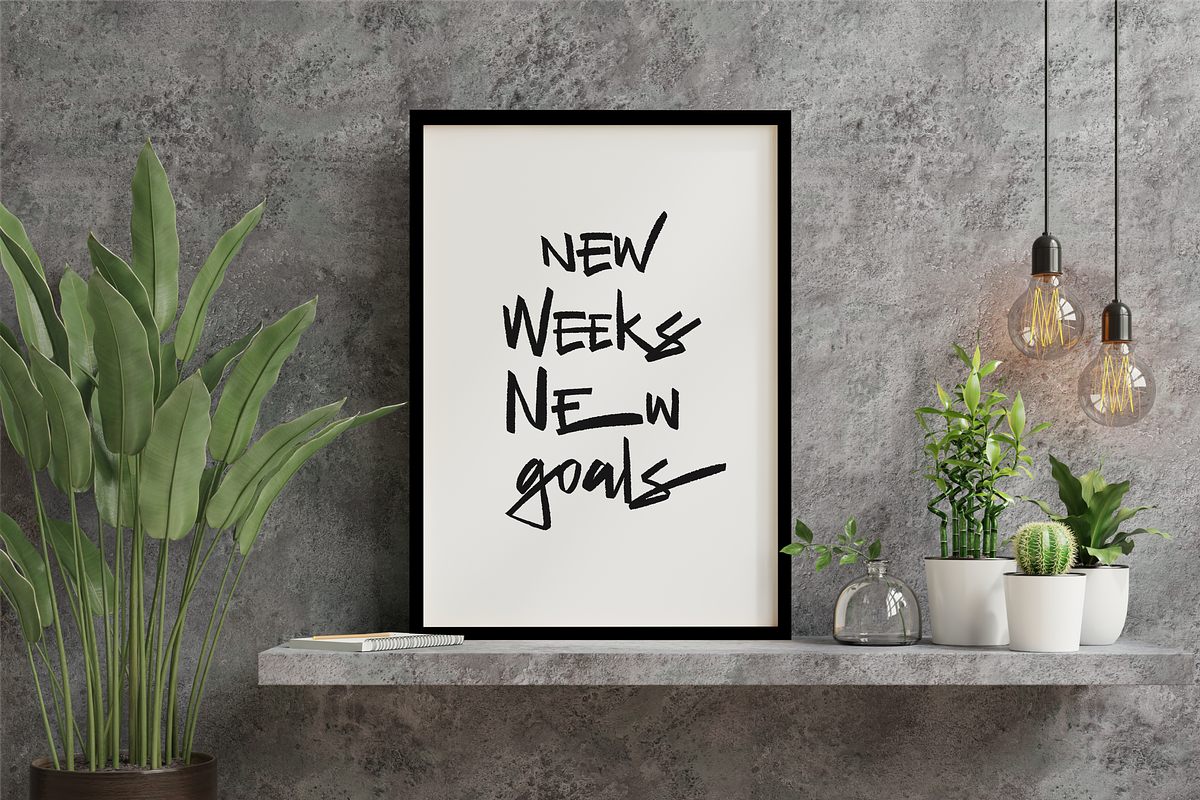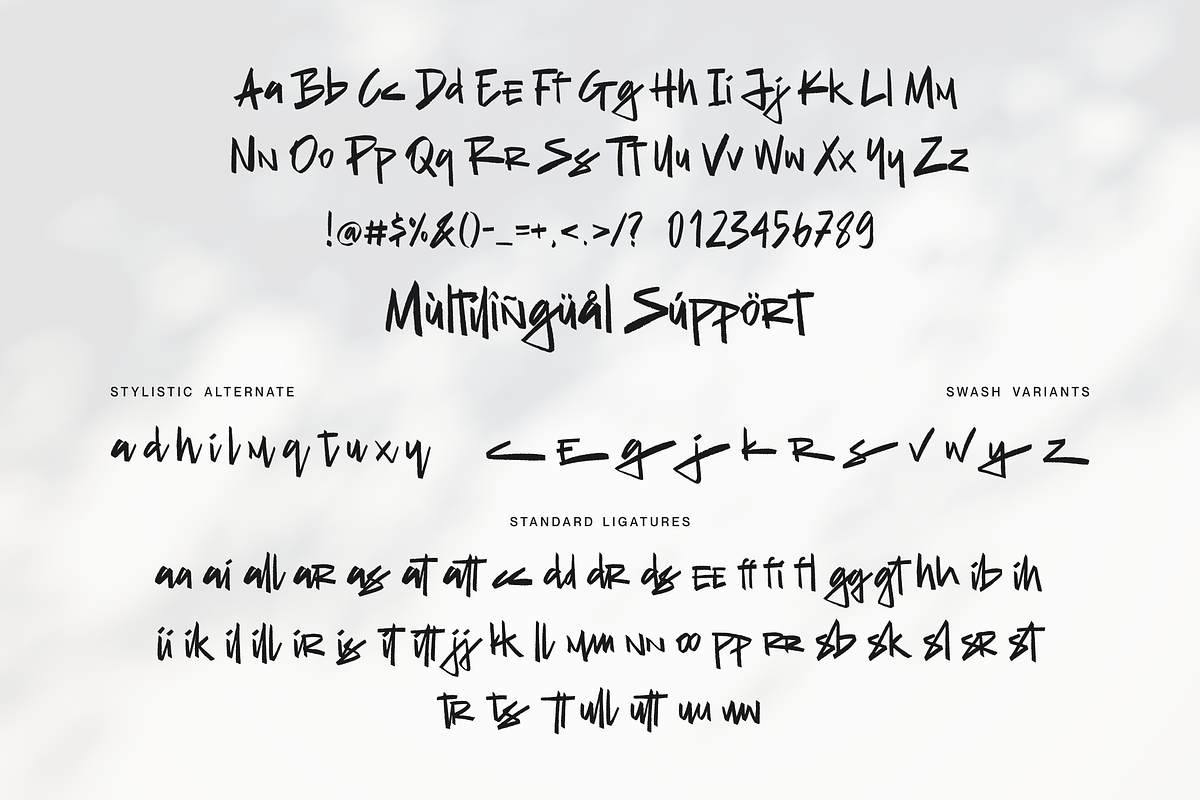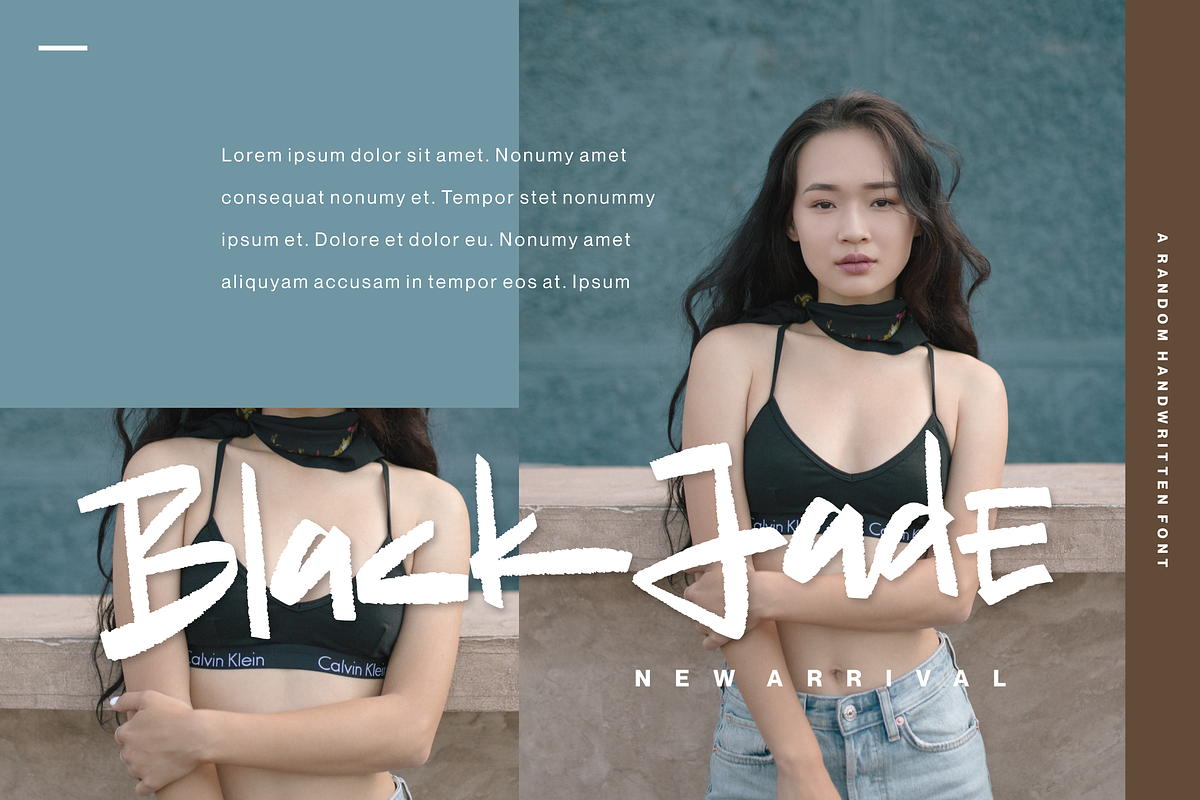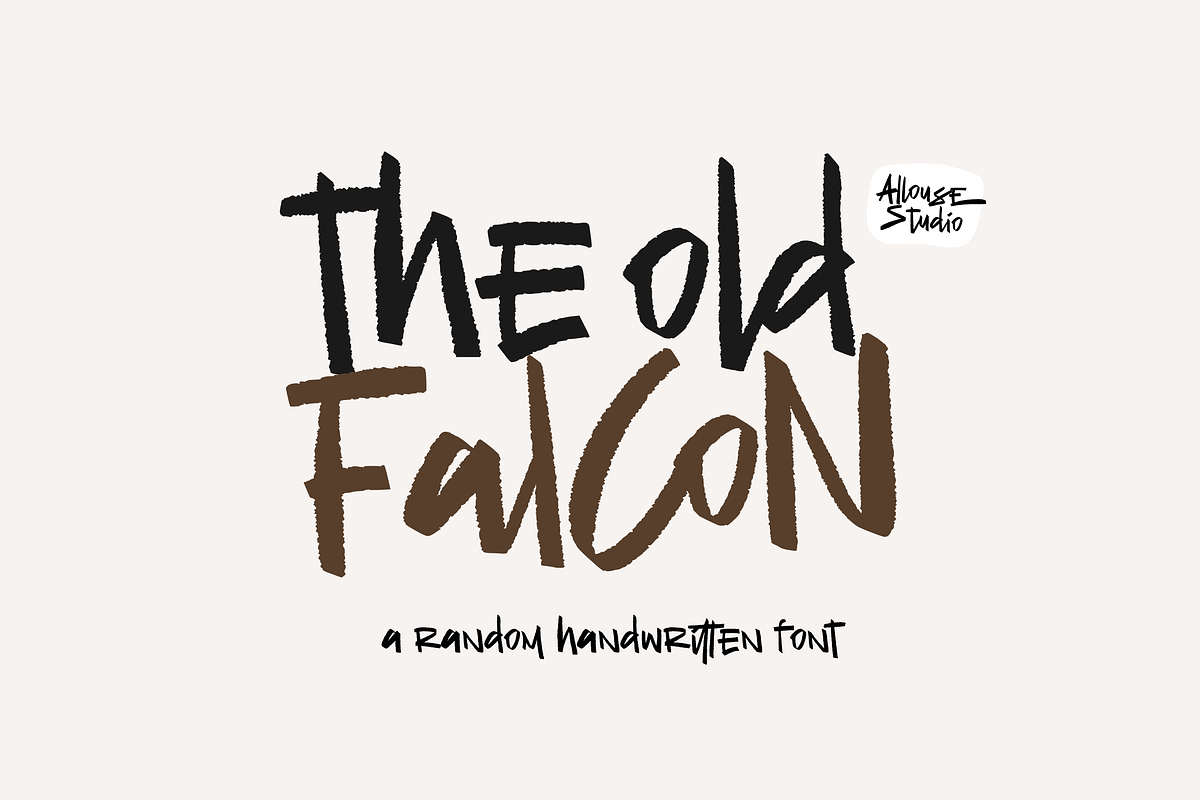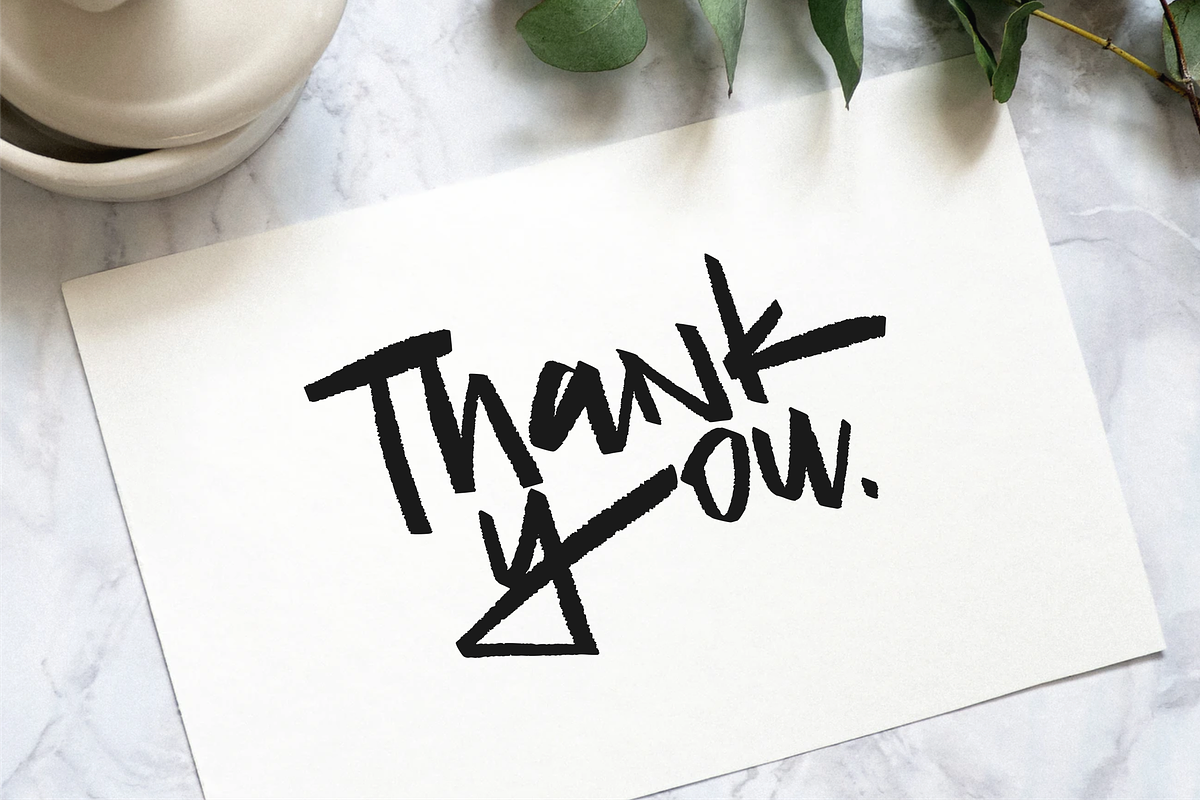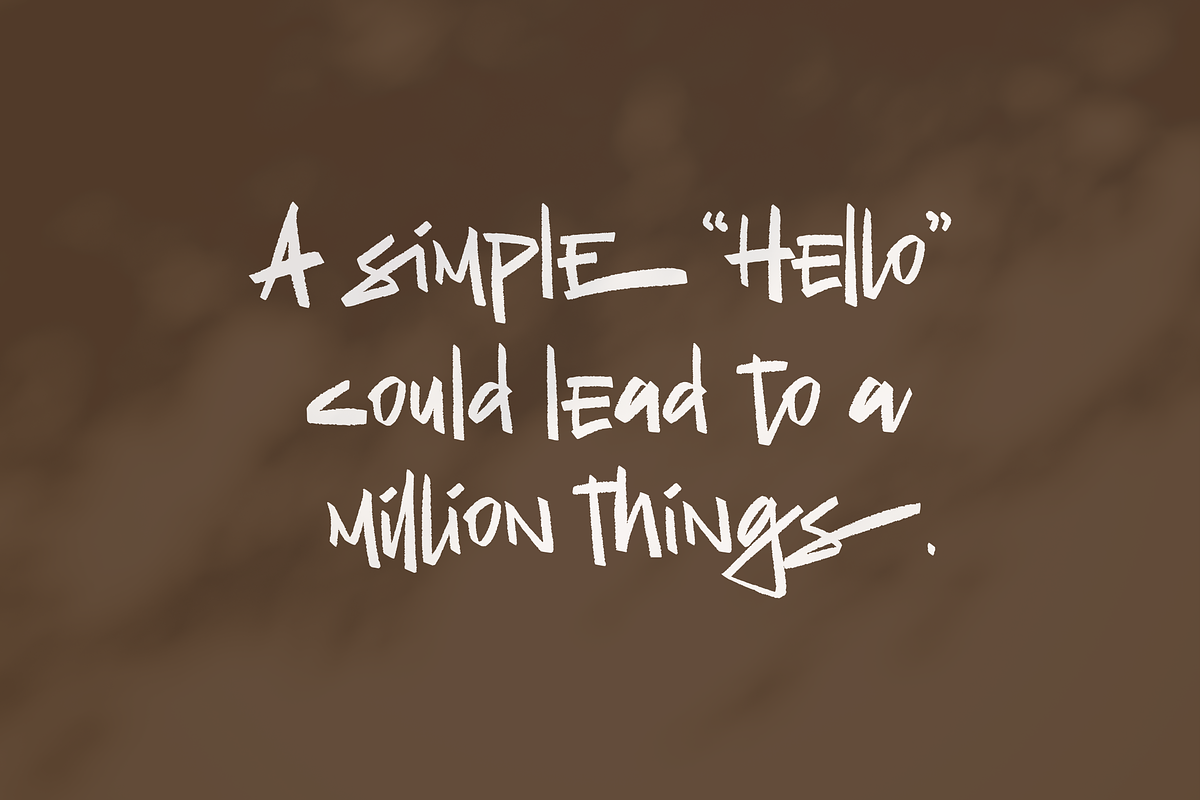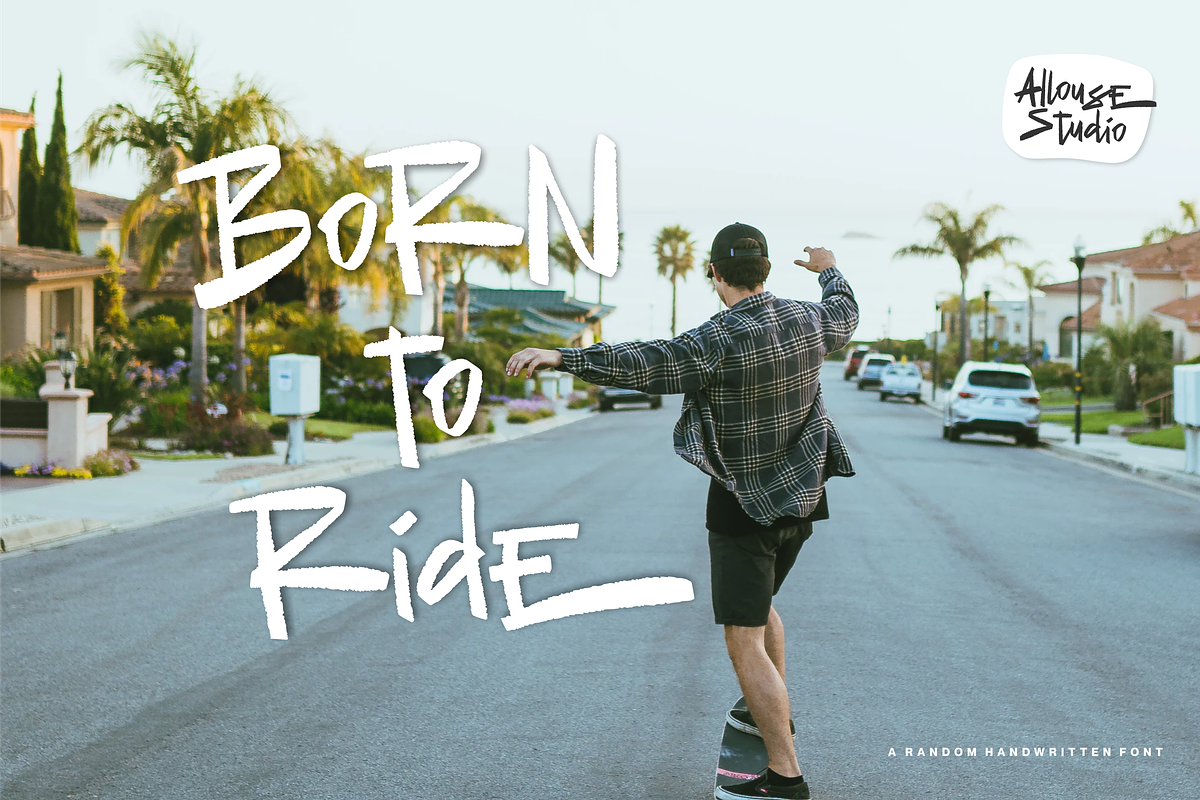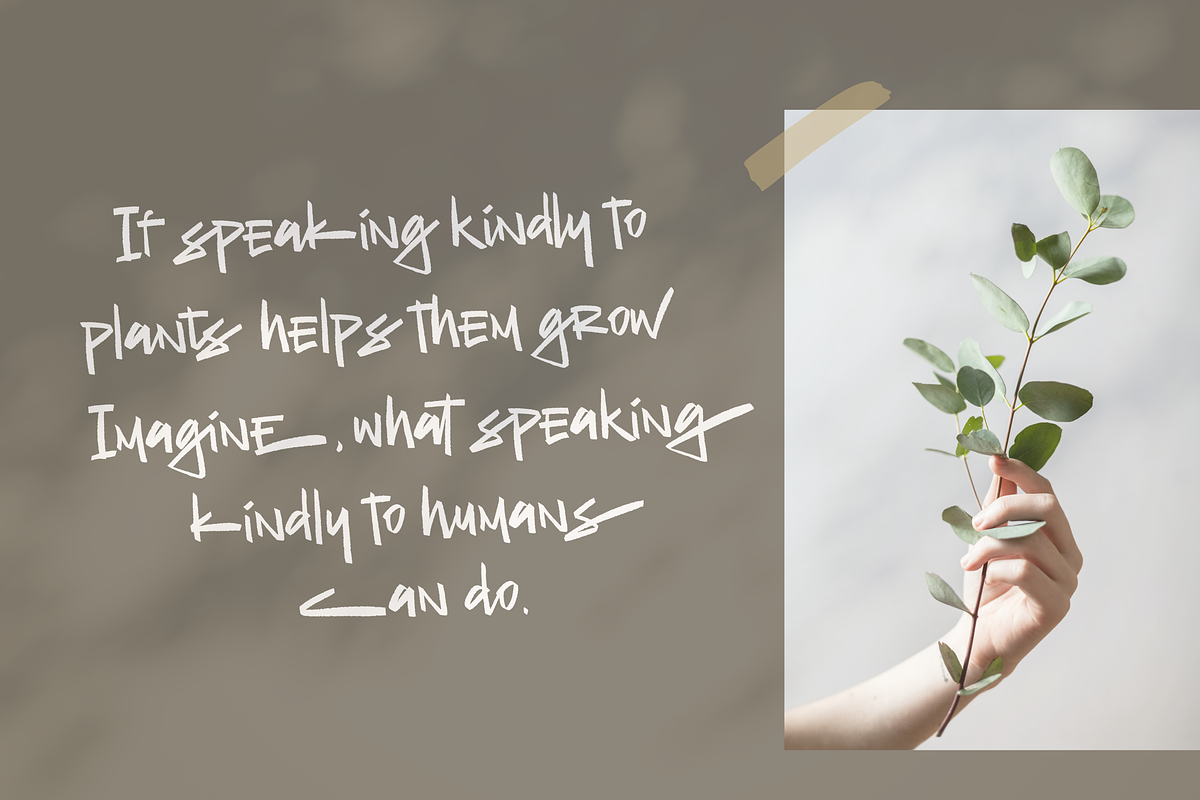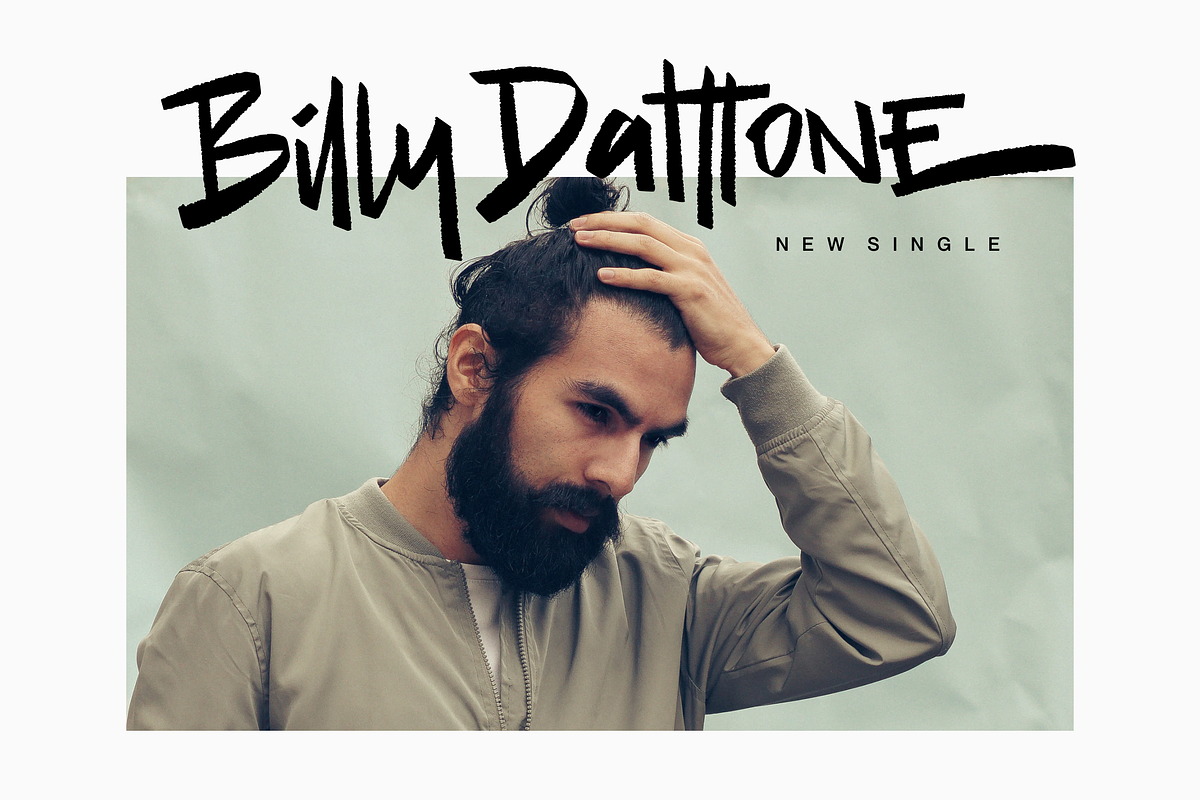
The Old Falcons Font
Introducing by Allouse.Studio
Proudly Present, The Old Falcons
The Old Falcons a Random Handwritten Font.
The Old Falcons is perfect for product packaging, branding project, megazine, social media, wedding, or just used to express words above the background.